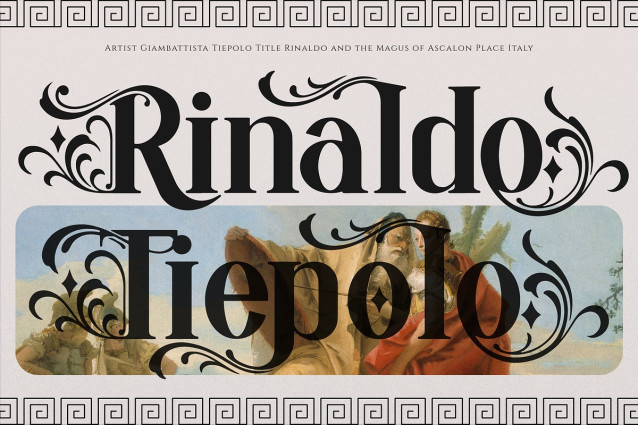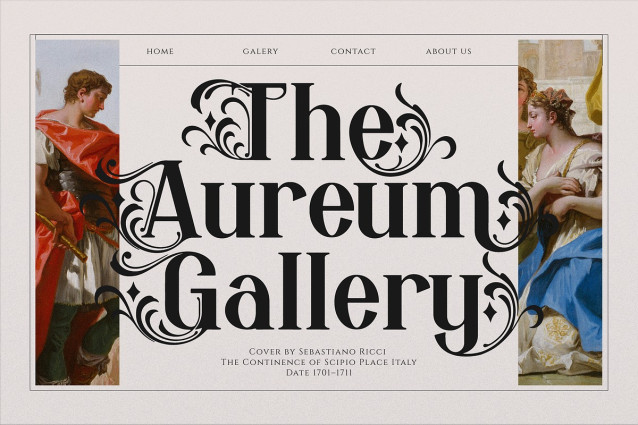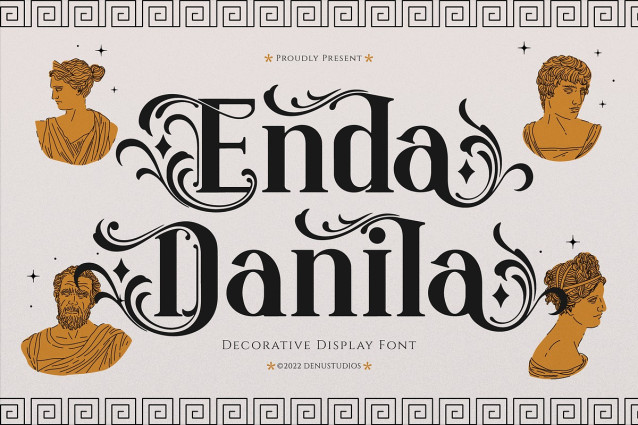
Enda Danila Font
Enda Danila Font | Decorative Display, from Denustudios, suitable for any projects such as: logos, branding projects, homeware designs, product packaging, mugs, quotes, posters, shopping bags, t-shirts, book covers, name card, invitation cards, greeting cards, label, photography, watermark, special events, and all your other lovely projects that need a blackletter taste.